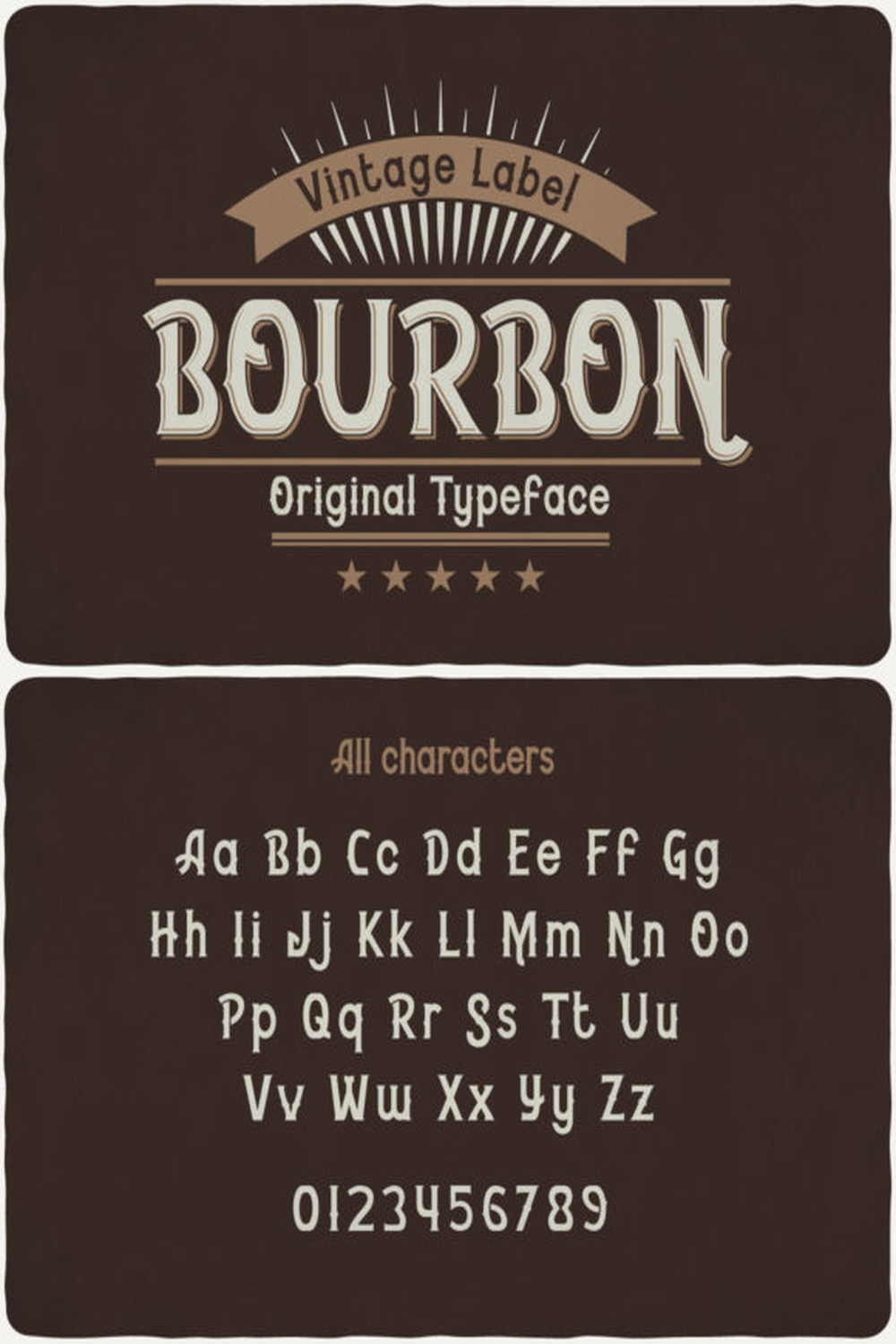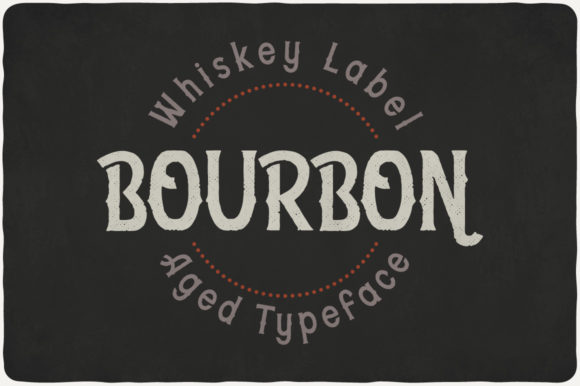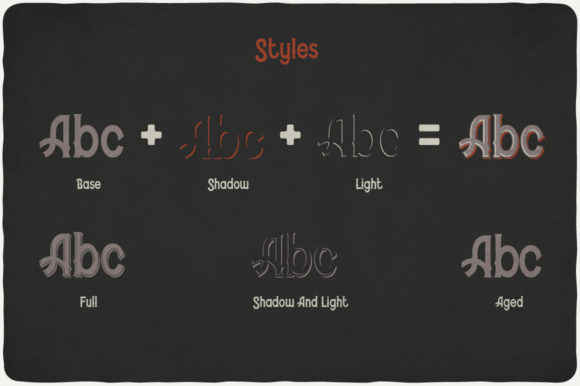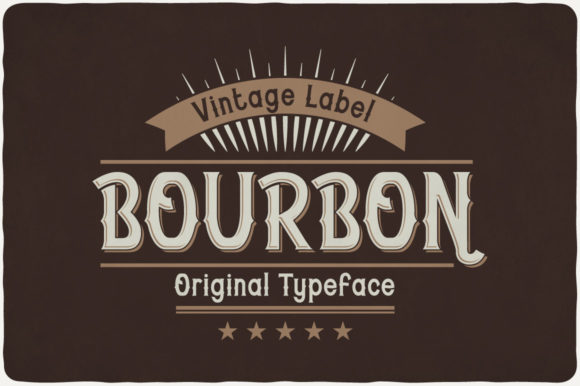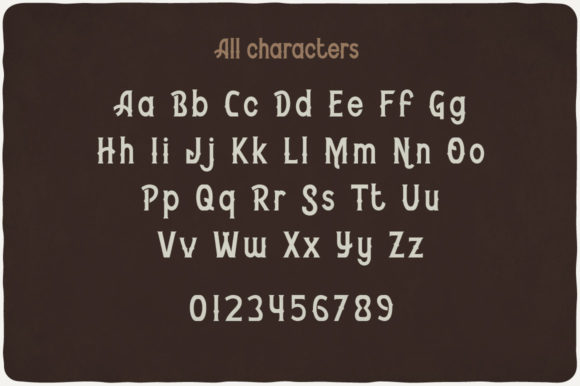
About the Bourbon Font
Crafted with precision, the Bourbon Font is ready to bring your ideas to life. Bourbon is a bold and vintage styled display font. Sophisticated and imposing, this font will be an incredibly asset to your fonts’ library, as it has the potential to elevate any creation.